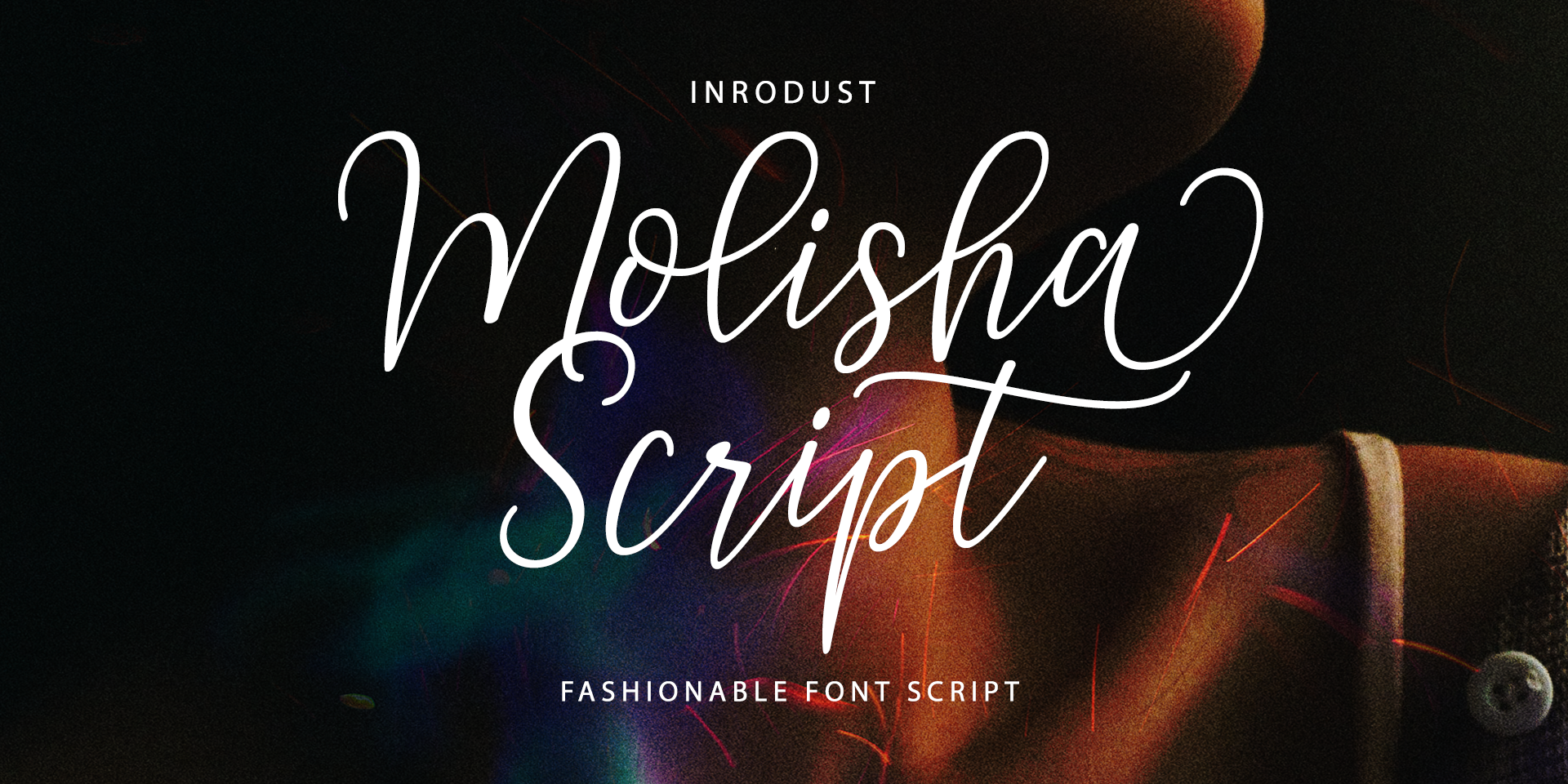
Molisha Script Font is ideal for wedding invitations, greeting cards, feminine brands, beauty salons, fashion boutiques, social media quotes, calligraphy projects, romantic novels, handwritten logos, and personal branding. This elegant script typeface excels in projects that require a personal touch, femininity, and sophisticated handwritten aesthetics.
What makes Molisha Script Font exciting is its perfect balance of flowing elegance and readable functionality. The font features beautifully connected letterforms that mimic natural handwriting while maintaining exceptional legibility across various sizes. Its graceful curves, stylish flourishes, and romantic character create an intimate connection with readers, making it perfect for brands and projects that want to convey warmth, personality, and authentic human touch.
Molisha Script Font includes comprehensive font families such as Regular, Bold, Light, Italic, Swash, and Ornamental versions. Each family variant maintains the signature script elegance while providing different decorative elements and stylistic alternatives to enhance creative flexibility and design versatility.
This premium script typeface serves as an excellent choice for designers specializing in feminine markets, wedding industry, and lifestyle brands. Molisha Script Font Free Download offers exceptional value for calligraphers, wedding planners, and creative agencies focusing on personal and romantic branding. The font's handcrafted appeal makes it particularly suitable for luxury stationery, boutique branding, personal blogs, and artisanal product packaging.
Whether you're designing wedding stationery, creating feminine brand identity, or developing marketing materials for beauty and wellness businesses, Molisha Script Font delivers the perfect combination of elegance and authenticity to make every project memorable.